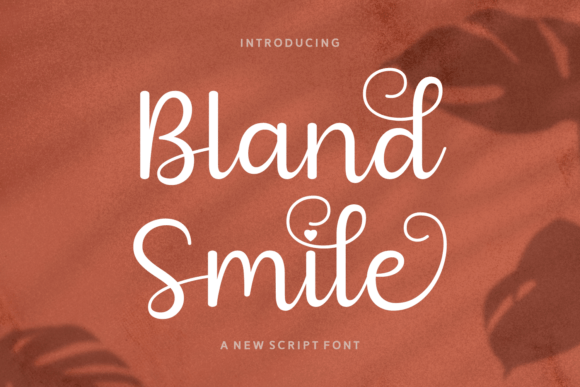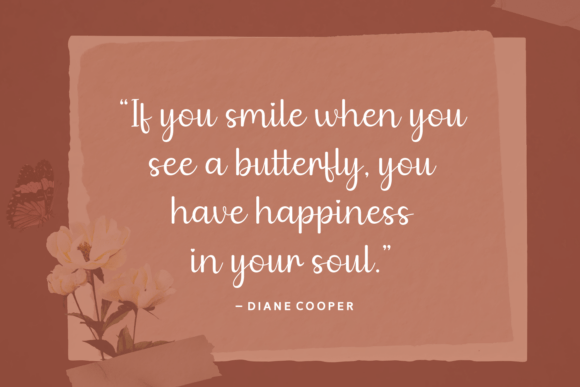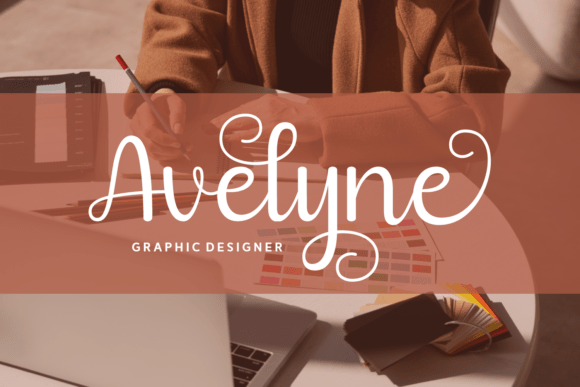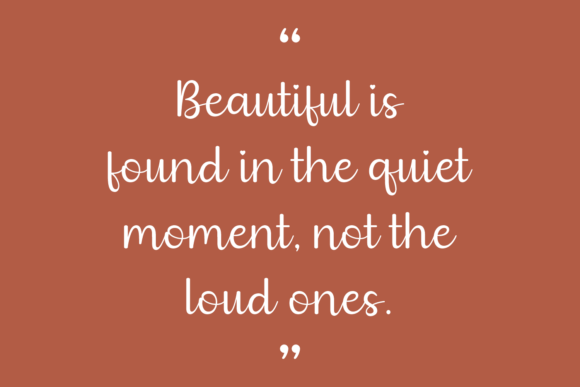
Bland Smile Font
About the Bland Smile Font
Presenting Bland Smile Font, a unique and stylish typeface that will make your work stand out. Bland Smile is a sweet and whimsical script font designed to bring warmth and positivity to any design. With its smooth curves, playful loops, and heart-accented letters, Bland Smile is perfect for crafting cheerful quotes, greeting cards, children’s products, and branding that radiates friendliness. Its clean readability and quirky charm make it a delightful choice for both print and digital creations looking to add a little love and fun.
Bland Smile’s friendly, whimsical nature makes it ideal for projects requiring a touch of lighthearted charm. Consider it for headlines, short-form content, logos for children’s brands or sweet treat companies, and packaging design for products targeting a younger demographic. However, its script style and playful flourishes make it less suitable for body text or UI elements where high readability is paramount.
For optimal visual balance, pair Bland Smile with a clean sans-serif like Open Sans for a modern contrast, or a classic serif like Garamond for a sophisticated touch. A geometric sans-serif such as Montserrat could also provide a strong counterpoint to its organic curves.
The font’s overall personality is undeniably cheerful and approachable, lending itself to brands focused on positivity, fun, and connection. Avoid using it where a more serious or formal tone is required.
Bland Smile Font Usage Examples
Bland Smile Font Example